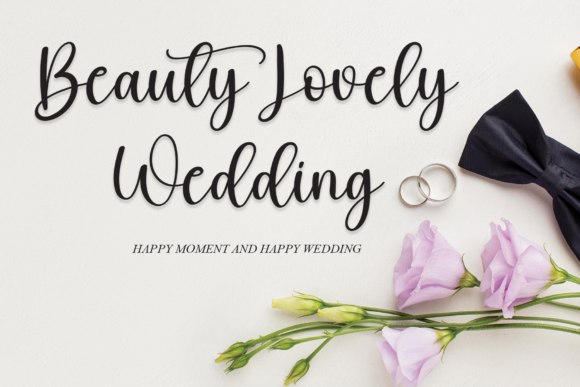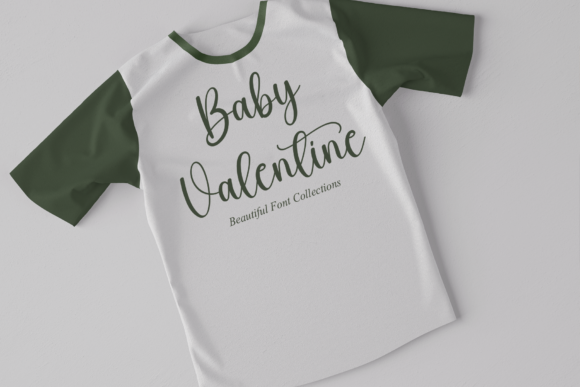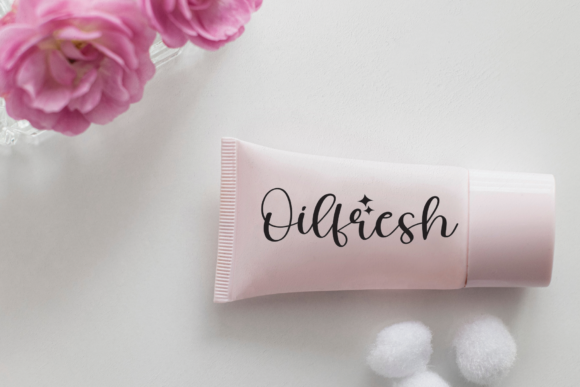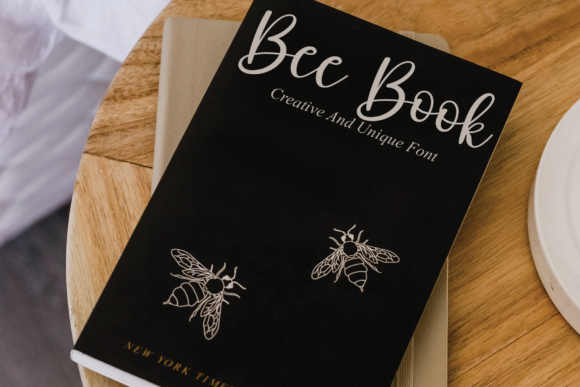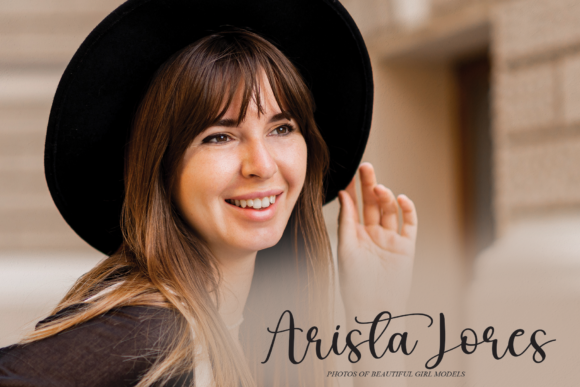
February Font
About February Font
February is a beautiful and light handwritten font with a unique feel and a stunning impact. It will add a luxury spark to any design project that you wish to create.